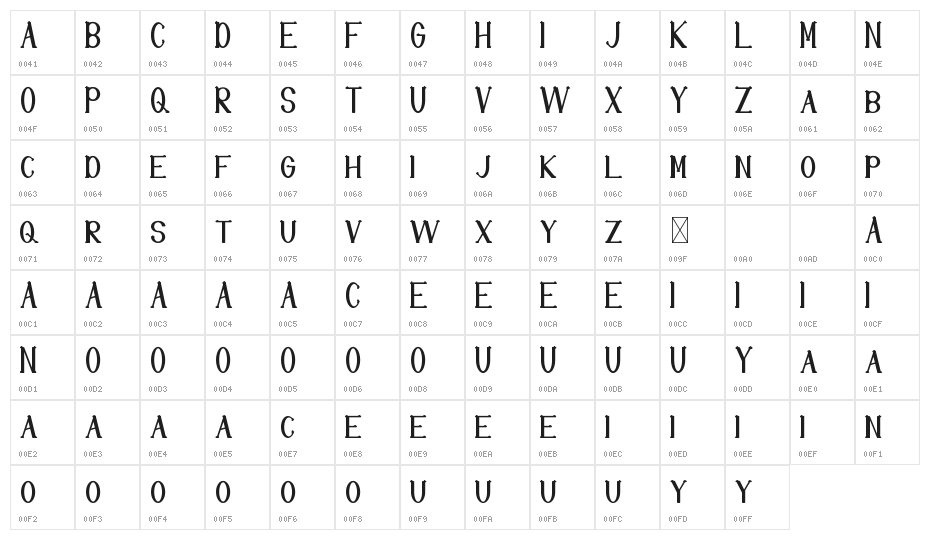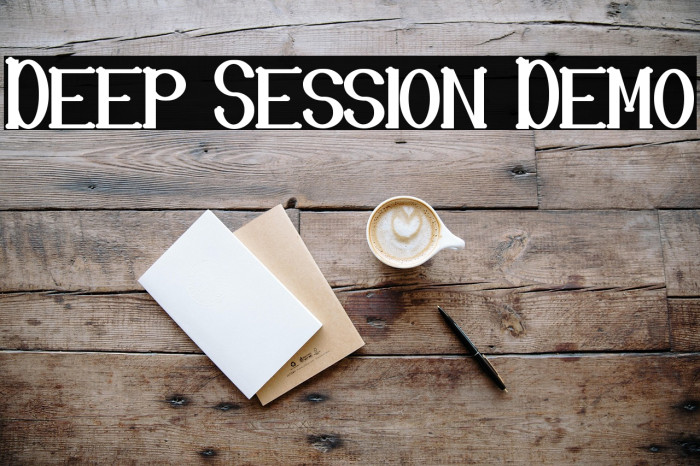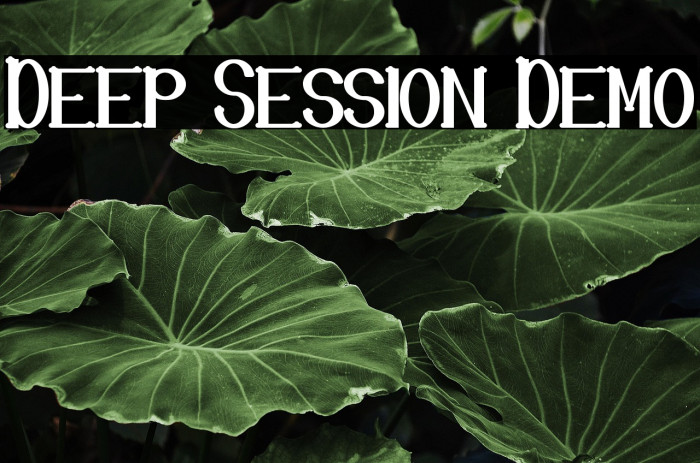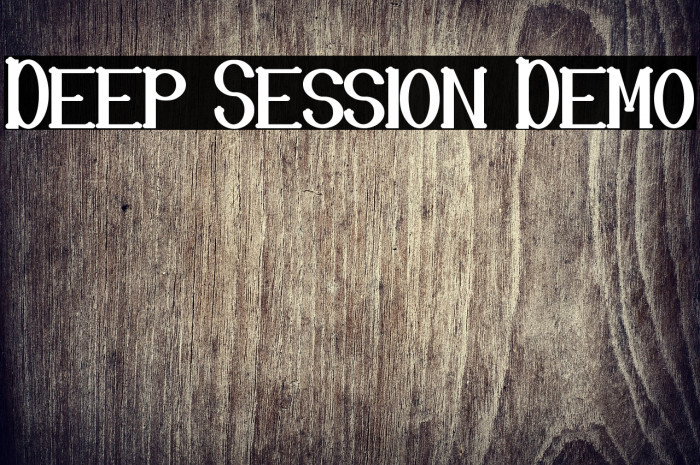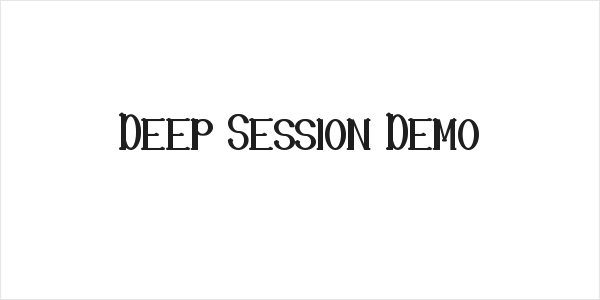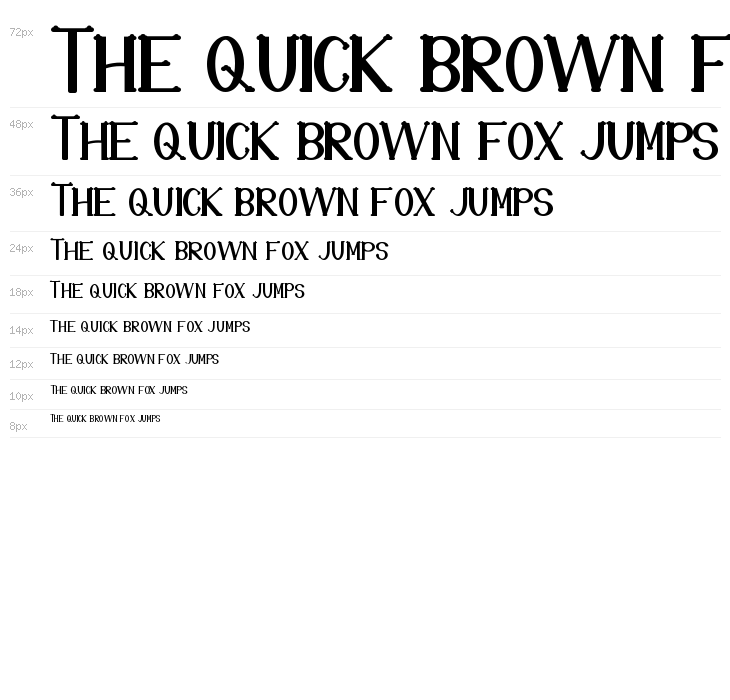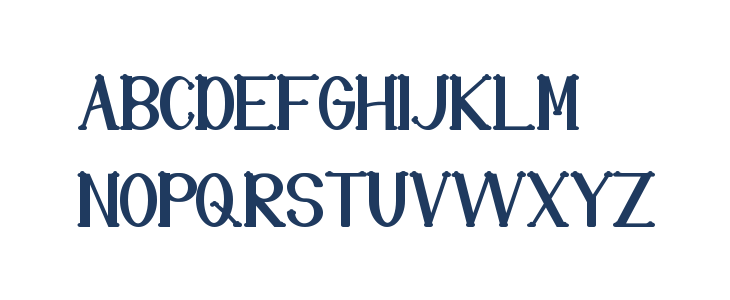
Deep Session Demo Font
Deep Session Demo Description
This font features a unique and playful design with exaggerated serifs and a bold, whimsical style. The characters have a distinct, almost cartoonish appearance, with rounded edges and a slightly condensed form. The uppercase letters are particularly striking, with their bold strokes and decorative elements, making them stand out prominently. The font maintains a consistent weight throughout, providing a balanced and cohesive look. Its playful nature makes it suitable for creative and informal projects, adding a touch of fun and personality to any design.
| Width | Condensed |
| Overall Style | Whimsical |
| Proposed Projects | Ideal for children's books, playful branding, posters, and creative invitations. |